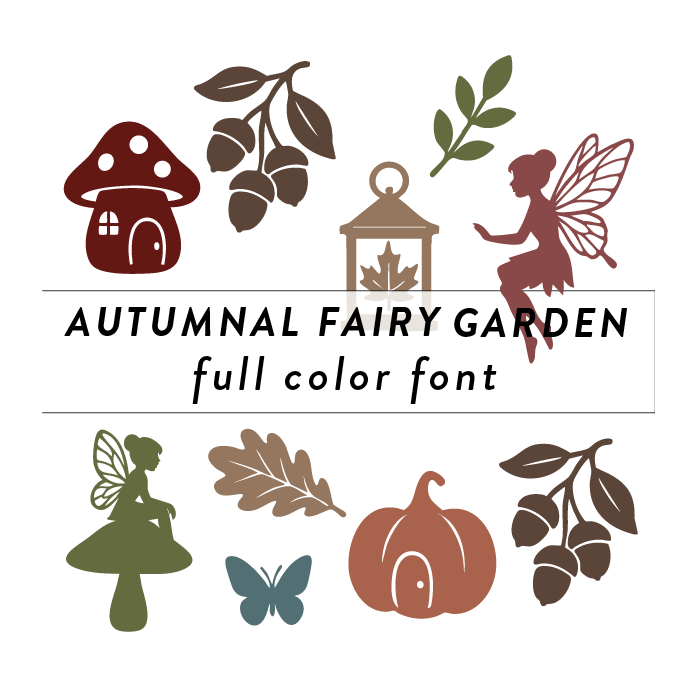
The Autumn Fairy Garden Full Color Font features whimsical designs of autumn leaves, fairies, and woodland motifs. This unique font style captures the enchanting essence of fairytales and nature. Perfect for adding a magical touch to any creative projects with an autumn theme. This font is a OTF craft font that will appear in color only when used with the silhouette software.